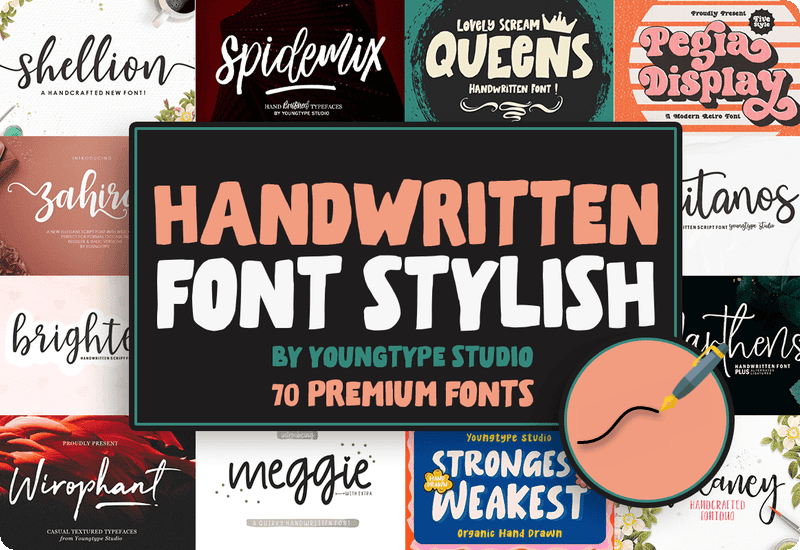
The Handwritten Stylish Font Bundle brings together 70 beautifully designed fonts that blend classic and modern styles, making them perfect for branding, invitations, posters, business materials, and digital projects. Whether you are a graphic designer, business owner, or content creator, this collection provides a diverse range of elegant script fonts, artistic display fonts, and professional handwritten fonts.
What’s Included in This Font Collection?
This bundle features a diverse selection of handwritten, script, and display fonts to suit different styles and project needs. From delicate calligraphy fonts to bold statement fonts, this collection provides everything required to create eye-catching and professional designs.
✔ Elegant Script Fonts – Perfect for wedding invitations, branding, and formal projects
✔ Modern Handwritten Fonts – Ideal for social media graphics, greeting cards, and creative projects
✔ Bold Display Fonts – Best for posters, advertisements, logos, and promotional materials
✔ Vintage & Retro Styles – Adds a unique and timeless feel to any design
✔ Casual & Playful Fonts – Great for fun, lighthearted designs and digital content
Some of the high-quality fonts included in this bundle:
- Miss Moonling – A charming script font for invitations and stationery
- Strongest Weakest – A striking display font for bold branding
- Strawberry Script – A handwritten font with a natural flow
- Mimogie – A stylish cursive font for creative typography
- Girlboss Script – A confident and elegant script font
- Freedom Script – A free-flowing, stylish handwritten font
- Vanny Onesha – A sophisticated script font perfect for branding